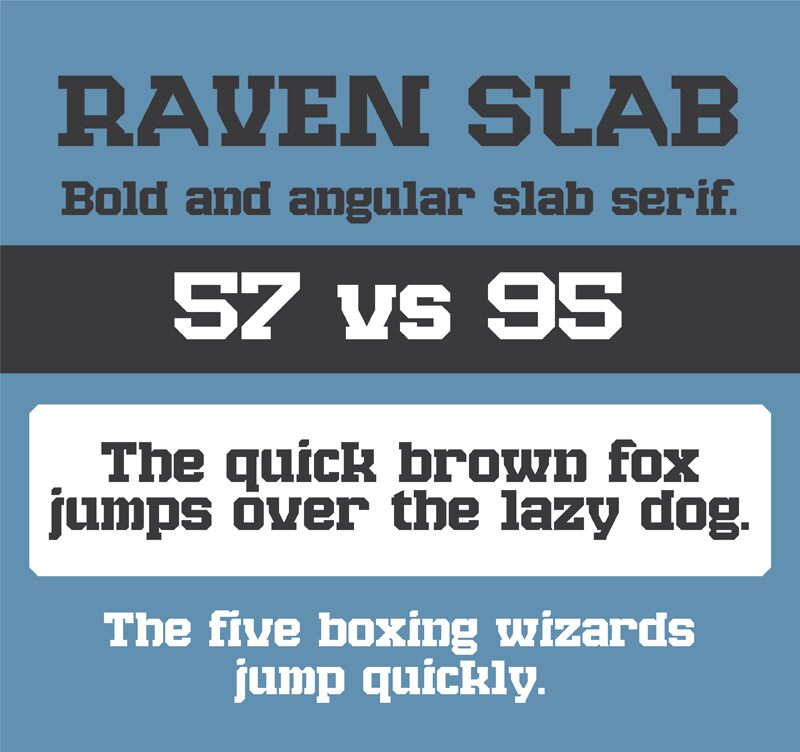
Raven Slab by Scott Byrne of FontStruct is a free futuristic display font with broad, forceful letters and sharply engineered cuts. Squared curves and broken joins give the letters a compact mechanical silhouette.
Its science-fiction styling suits game interfaces, film title cards, and electronic music posters, especially for projects drawing on machinery or early computer graphics. On packaging and merchandise, the angular shapes can become part of a dense circuit-board pattern or mechanical emblem instead of serving as neutral text.